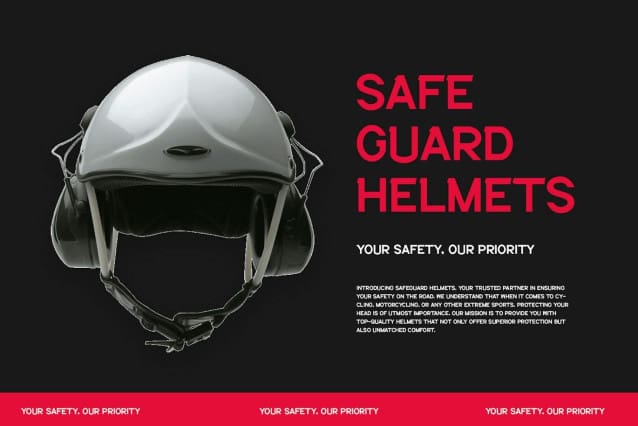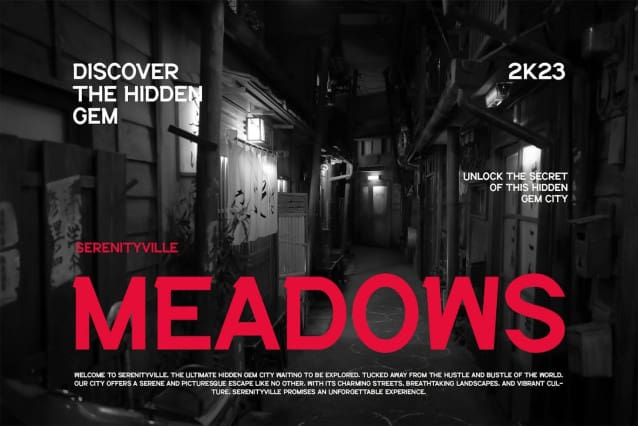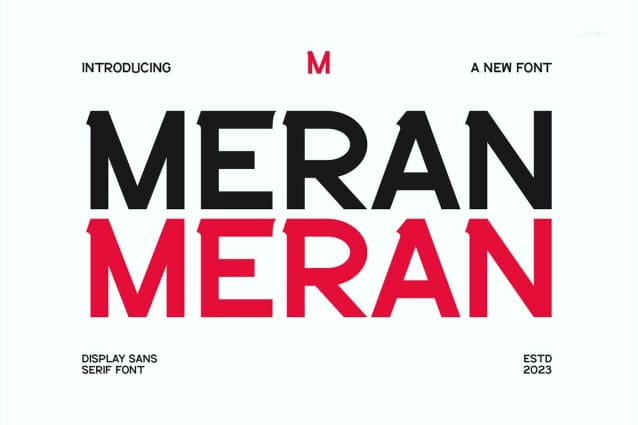
Meran Font
Meran Font, a modern sans serif font with an elegant style, perfect for branding, logos, invitations, magazines, product packaging and more.